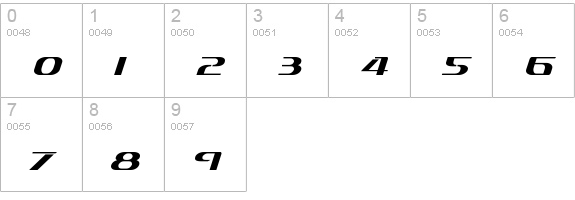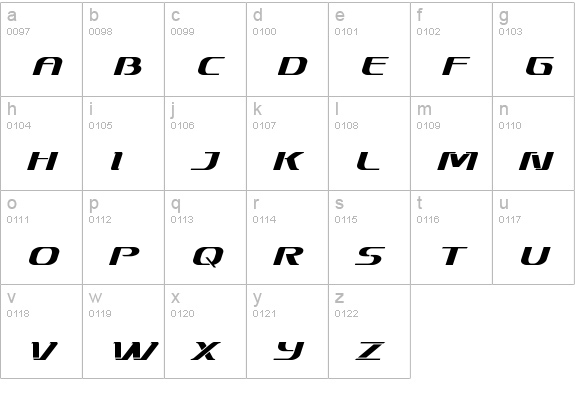
Sky Marshal Font Details
Sky Marshal is a donationware font in the Modern > Futuristic category, designed by Iconian. It has been downloaded 448 times and is available for Windows, Mac and Linux.
Sky Marshal font is a modern and sleek typeface that exudes authority and sophistication. With its clean lines and sharp edges, this font is perfect for conveying a sense of power and professionalism in any design project. The bold and commanding presence of Sky Marshal will make your text stand out and leave a lasting impression on viewers.